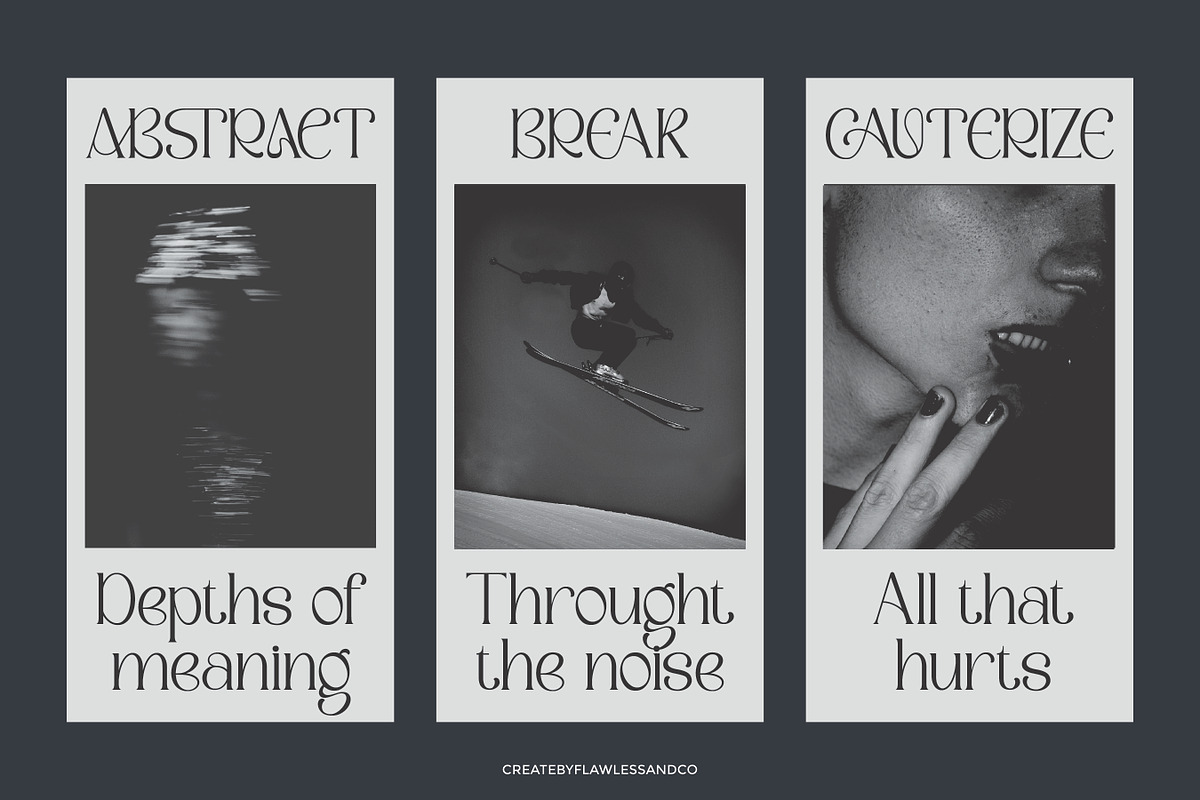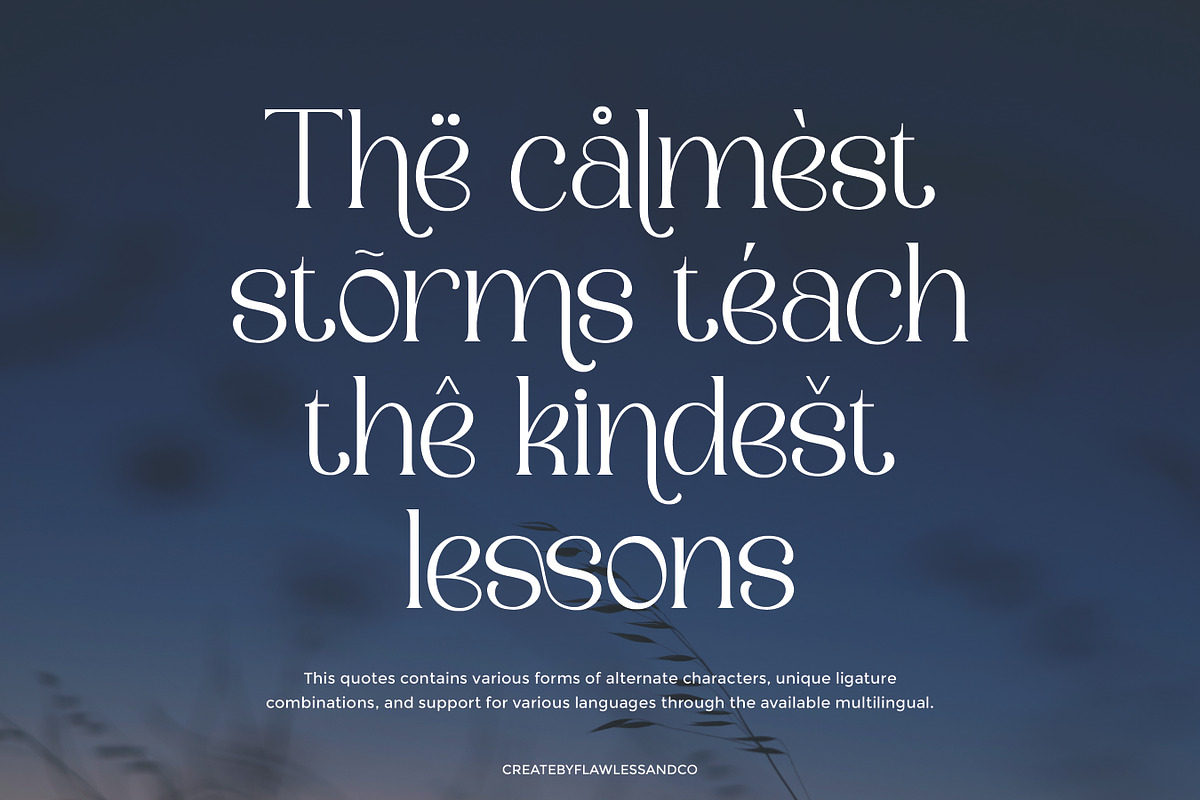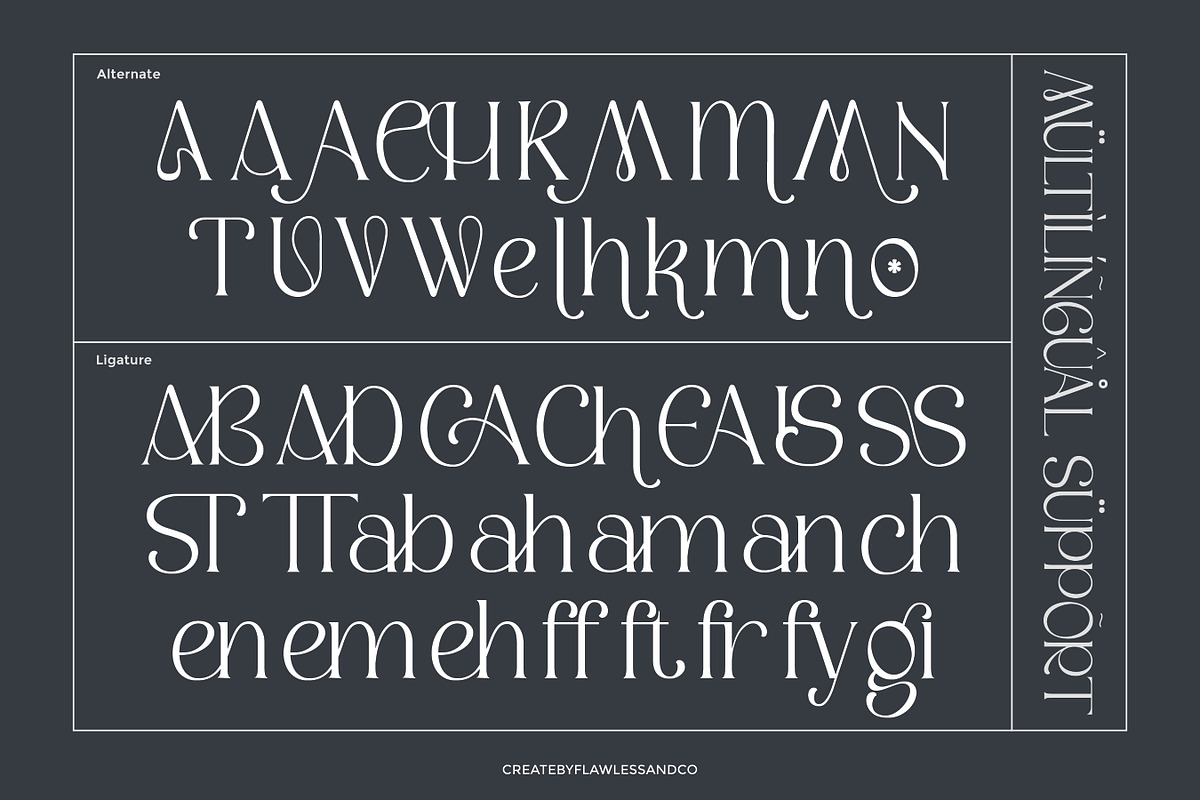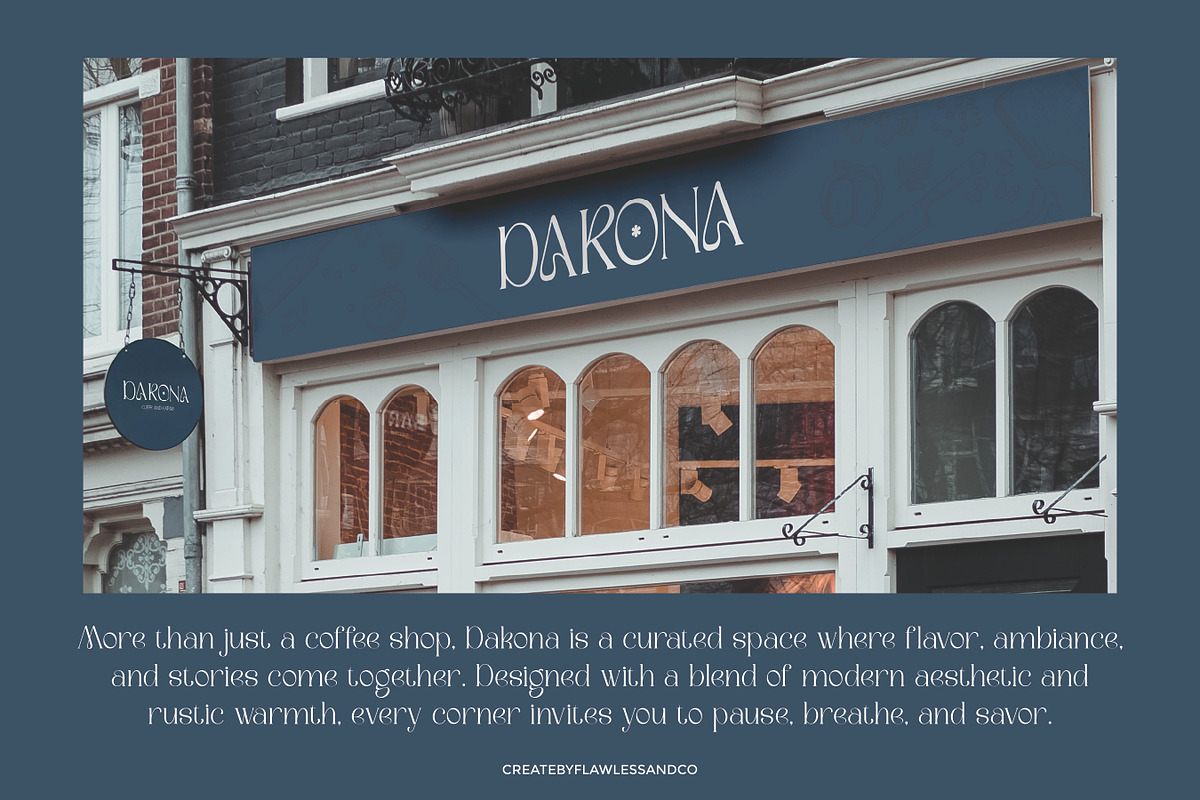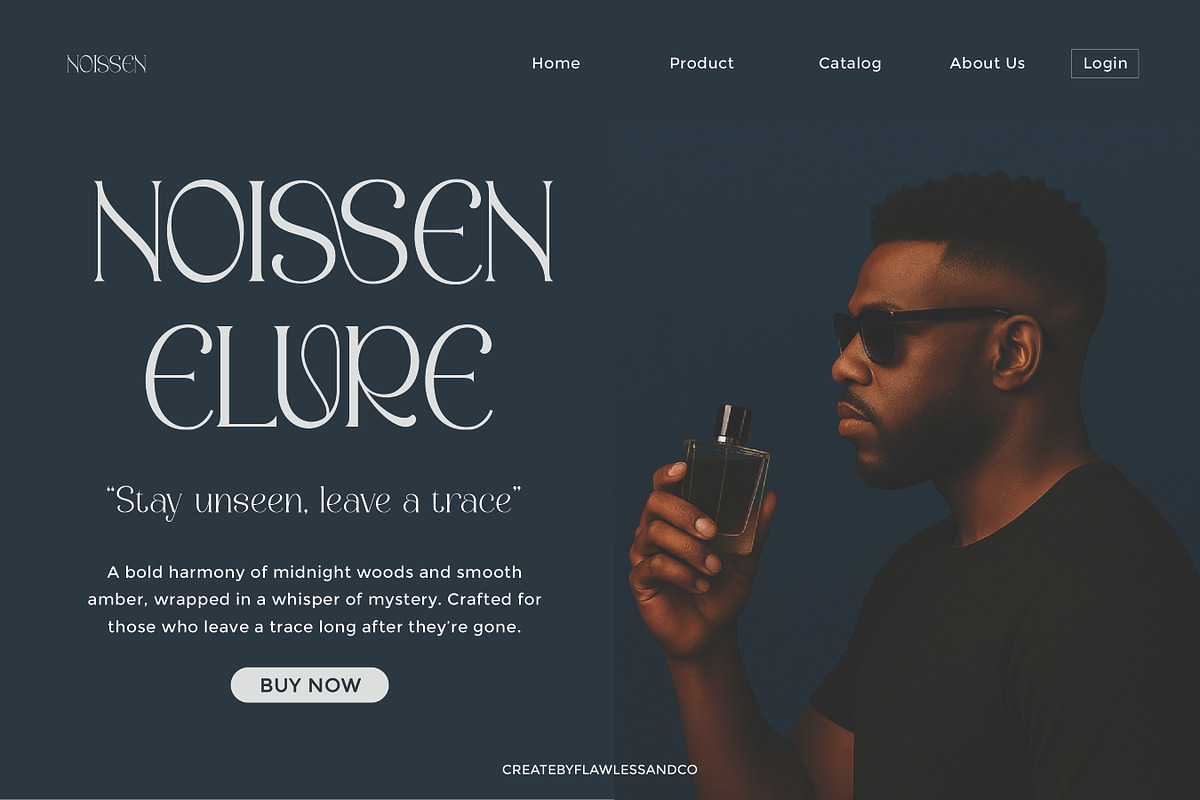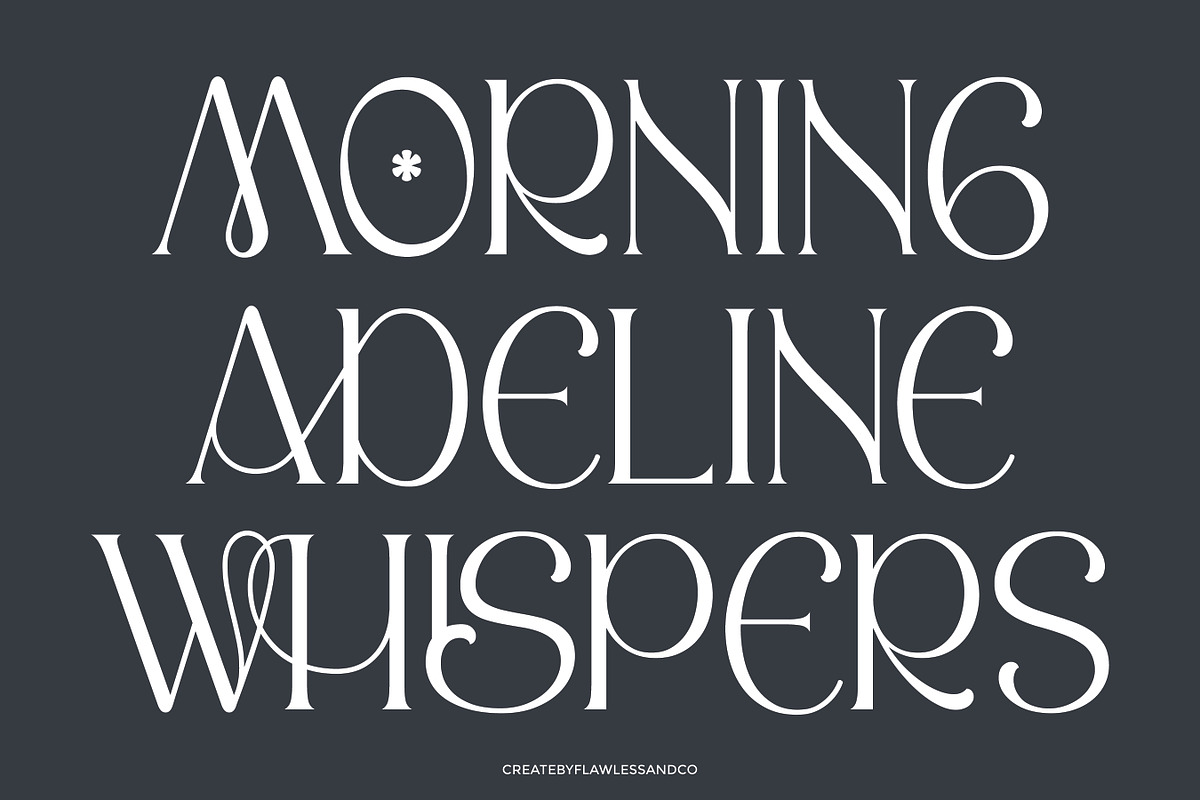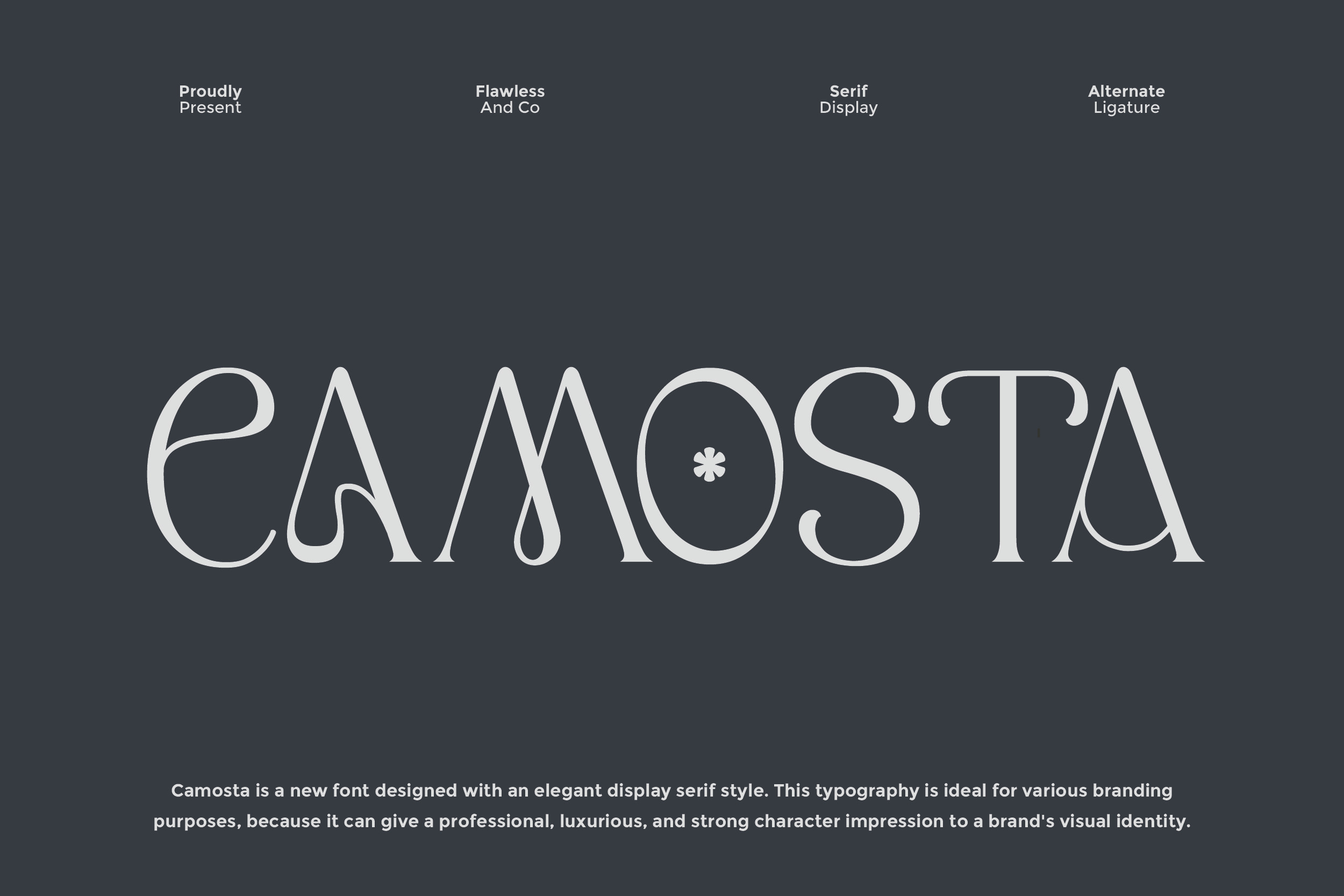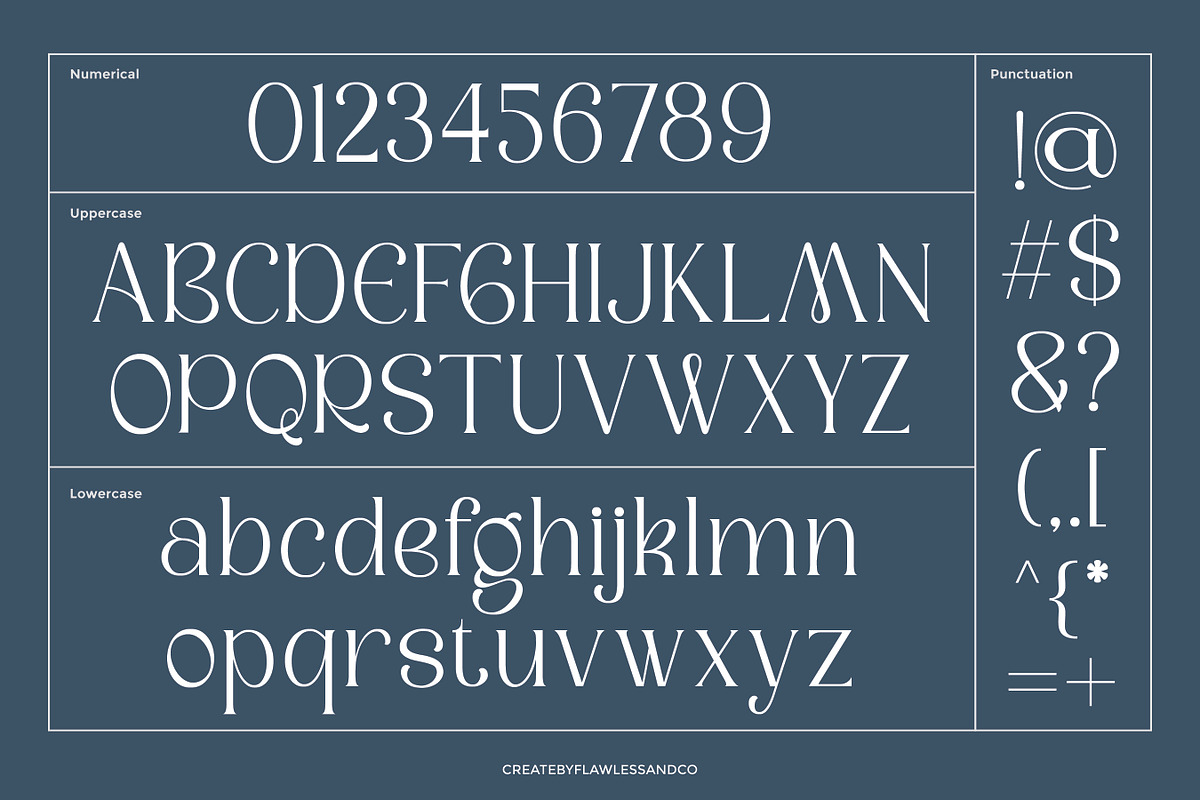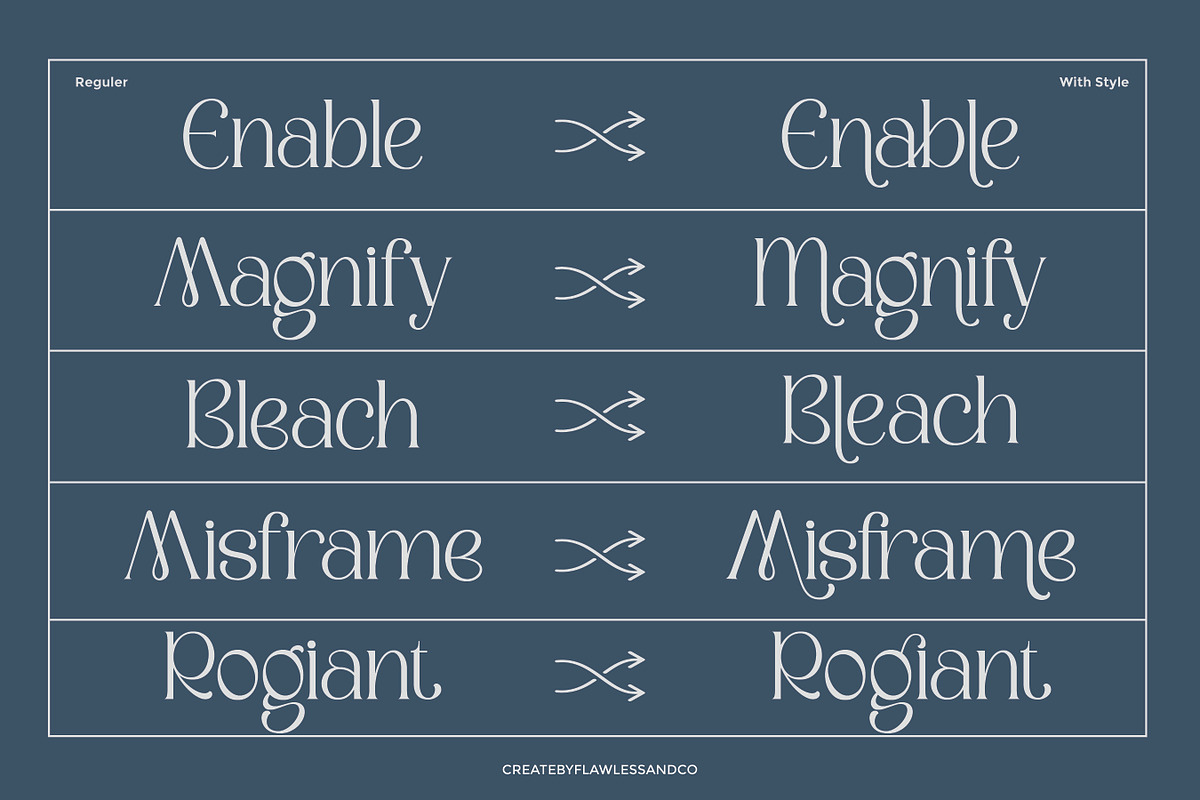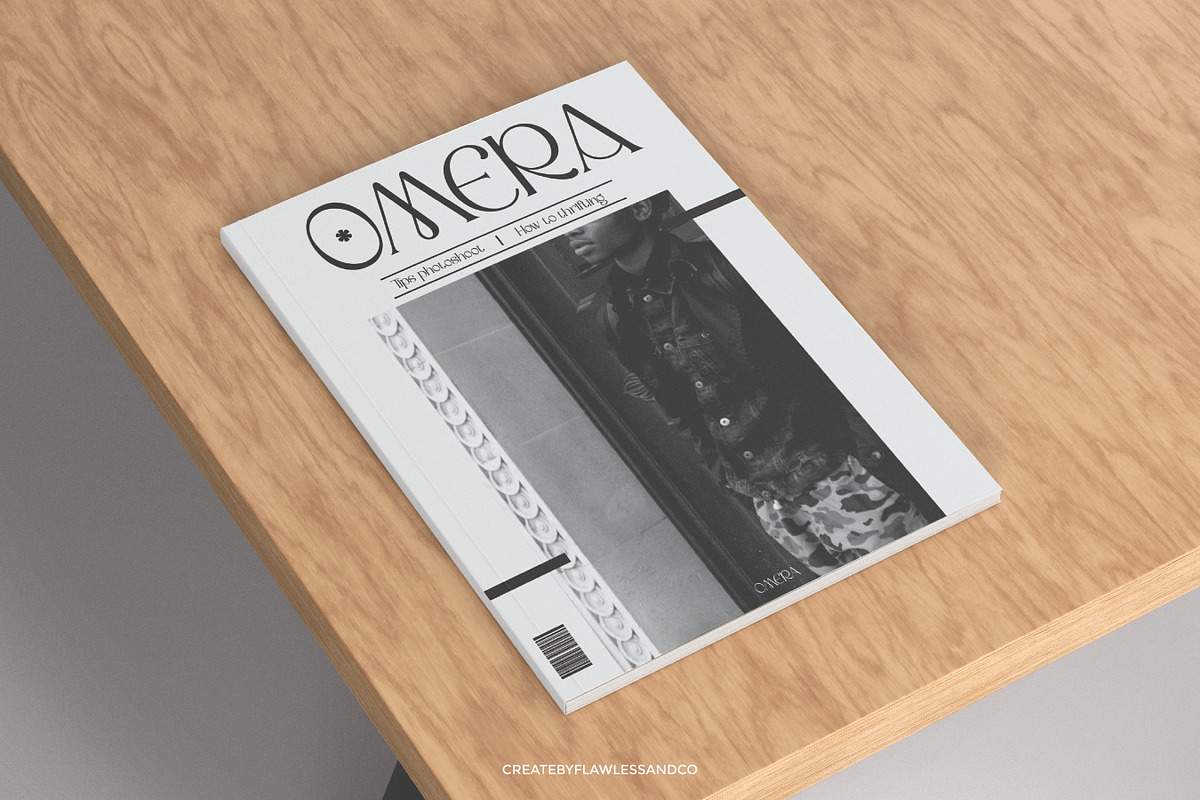
Camosta Display Serif Font
Camosta - Is a Display Serif Font
Camosta is a sophisticated serif display font with a touch of artistic elegance. Designed to make a bold yet refined impression, it blends stylish curves with striking alternates to elevate any design. Ideal for branding, editorial, or high-end packaging, Camosta brings a luxurious, professional look while maintaining a unique and memorable character. Whether used in headlines, logos, or magazine layouts, it effortlessly adds a sense of charm and modern classicism to your visual storytelling.
Who Should Use CAMOSTA?
Camosta is perfect for designers, creatives, and brand builders who want to bring refined elegance and editorial sophistication to their work. It's an ideal choice for:
- Branding specialists seeking a high-end, fashionable serif
- Editorial designers working on magazines, books, or journals
- Creatives looking for a luxurious, timeless font for packaging
- Logo designers in fashion, beauty, or lifestyle industries
- Anyone who wants to add a stylish, modern-classic touch to their visuals
A Must-Have Font for Brand and Logo Creators and Designers
Camosta is a go-to choice for those who want to elevate their branding with timeless elegance and editorial charm. Whether you're creating fashion labels, beauty logos, or stylish packaging, Camosta brings sophistication and strong visual identity to every project.
Why Choose CAMOSTA for Brand and Logo Projects?
Camosta combines classic elegance with modern versatility, making it the perfect choice for standout branding. Its refined serif details, stylish curves, and luxurious feel create a professional and memorable impression. Whether you're building a high-end brand, designing a fashion label, or crafting minimalist packaging, Camosta adds sophistication and character to your visual identity.
Suitable For:
- Brand identities & logo design
- Luxury fashion & beauty packaging
- Wedding invitations & stationery
- Editorial layouts & magazine titles
- Social media graphics & promotional content
- Boutique product labels & tags